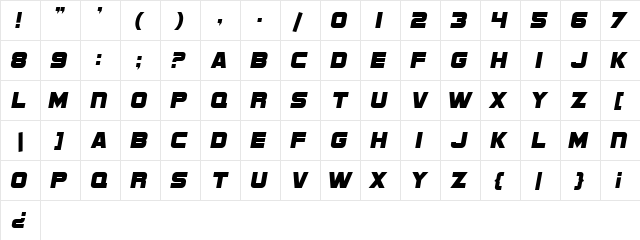
SF Sports Night NS Regular
Design Context for SF Sports Night NS Typeface
SF Sports Night NS has the bold swagger of sports branding: strong, assertive letterforms designed to dominate headlines and jerseys alike.
Built for sports team identities, athletic apparel, event posters, and high-energy promotional material.
Font Pairing: Use alongside a condensed or geometric sans for supporting copy — keep the pairing bold, functional, and free of ornament.
Pro Tip: SF Sports Night NS thrives on contrast — try it large, bold, and tight against a clean background for maximum visual impact.